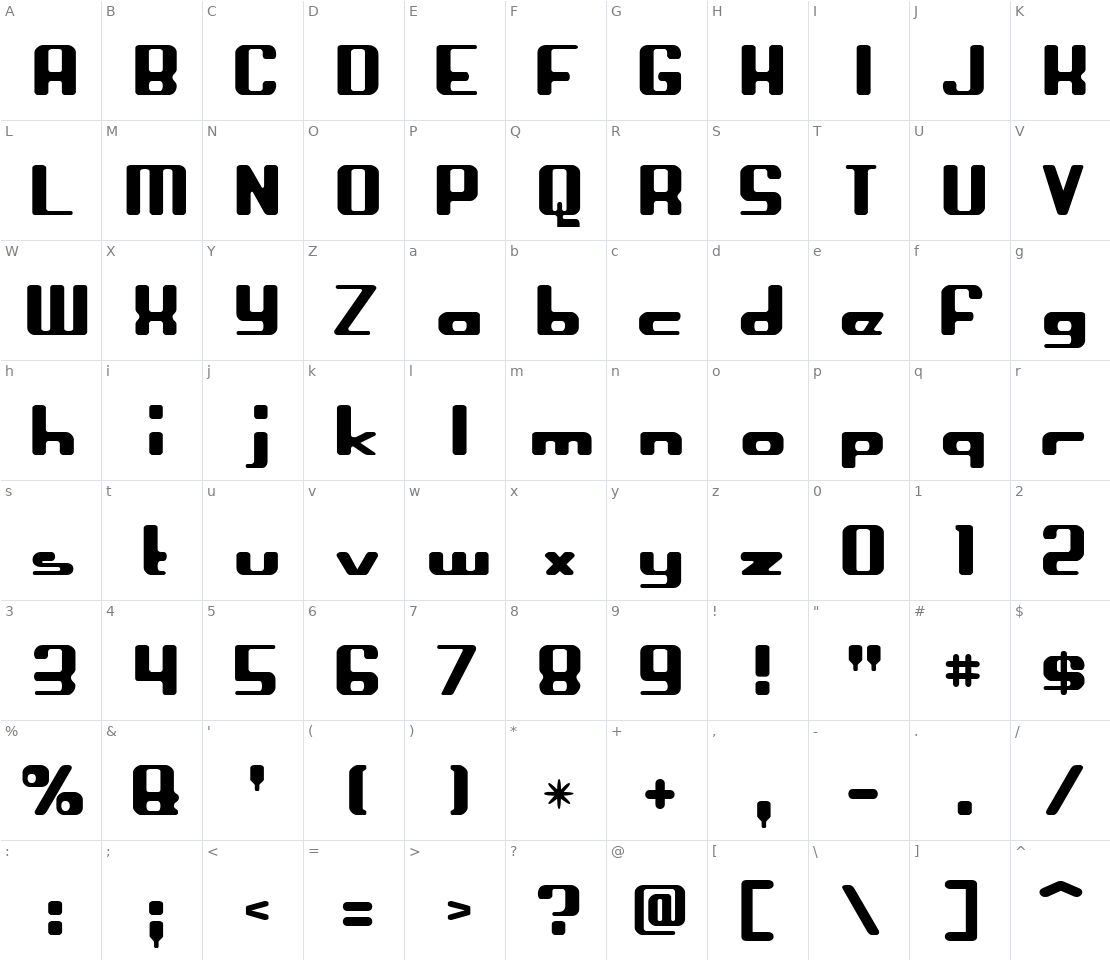
Crapola
Crapola is a wide, blocky display face from Ray Larabie with thick geometric letterforms that take up serious horizontal real estate. The heavy, squared-off shapes give it a blunt, almost brutalist personality, landing somewhere between futuristic signage and industrial labeling. Built for headlines and short runs of text where you want something unapologetically bold and impossible to ignore.